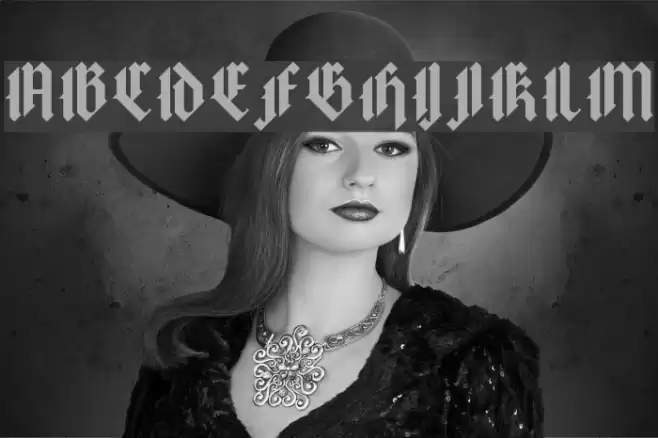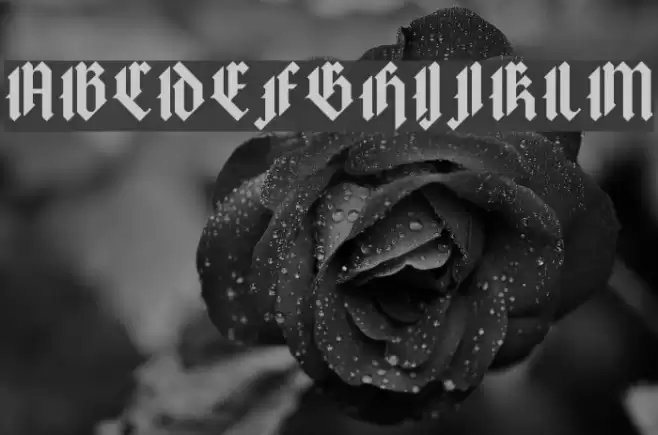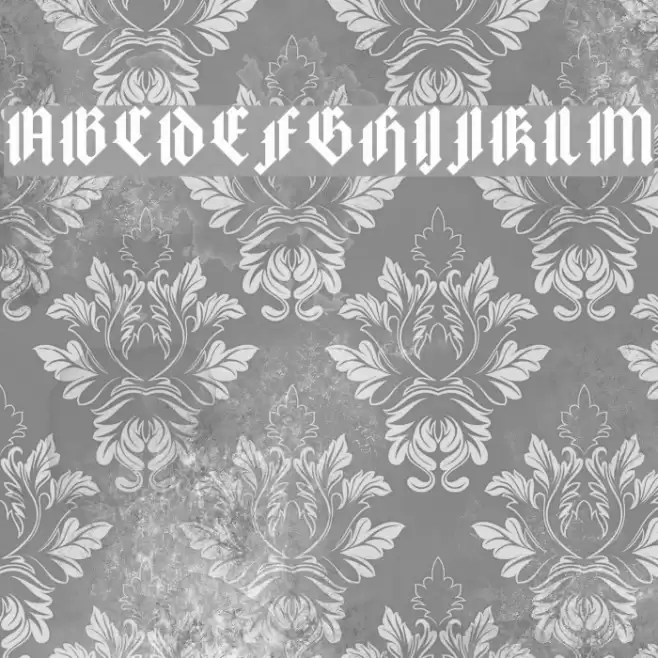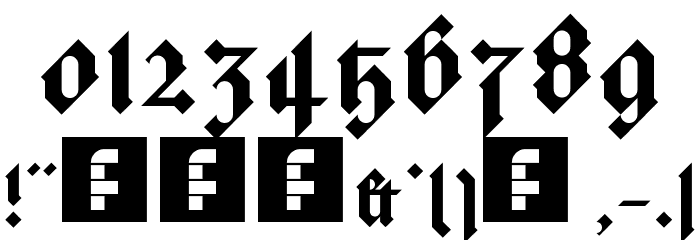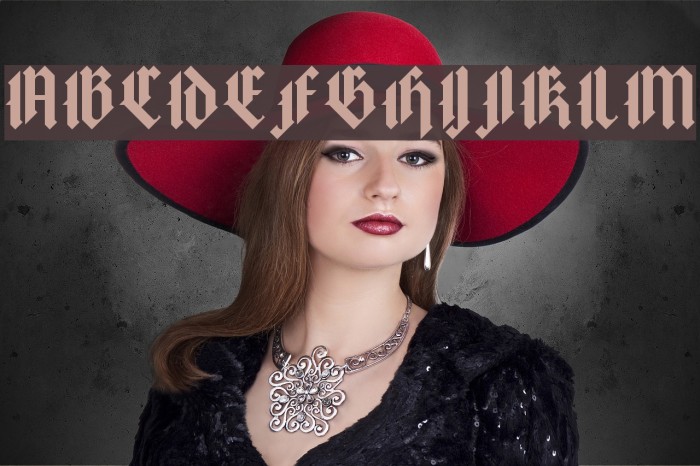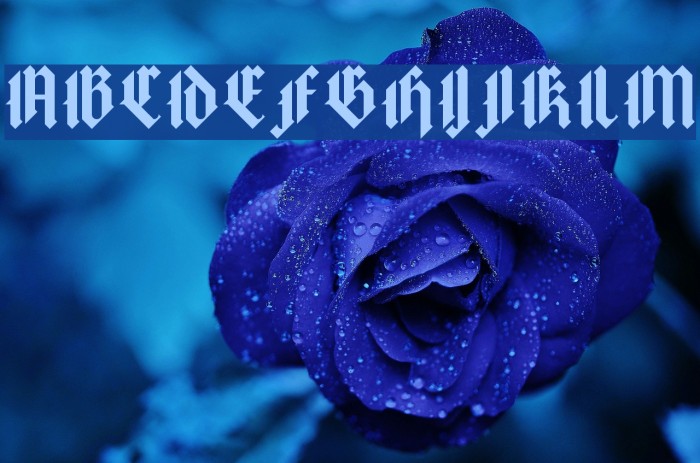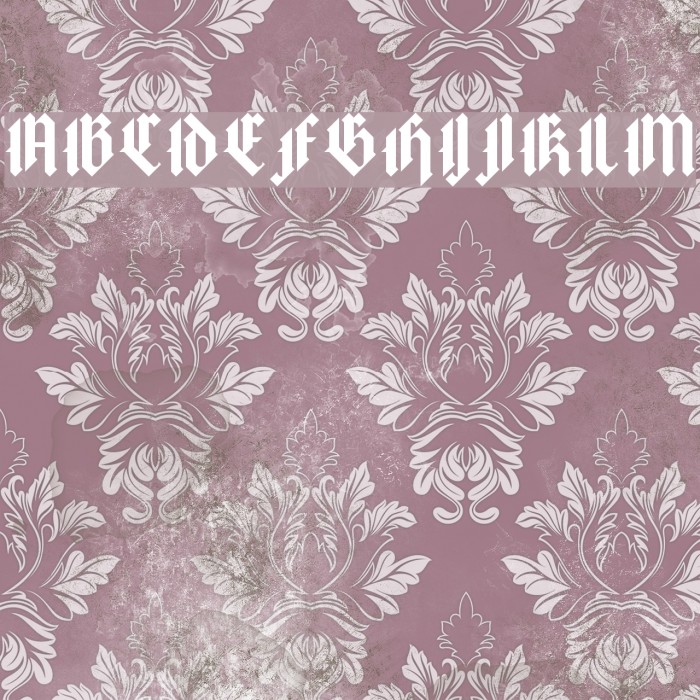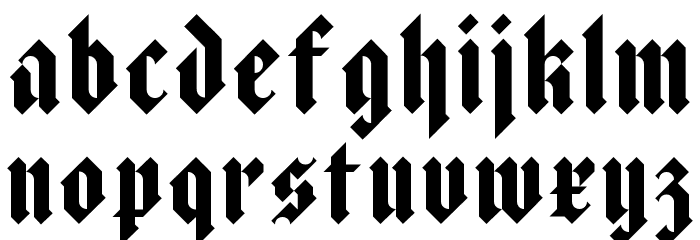
Texture Regular Font
Texture Regular Description
This font features a bold and striking blackletter style, reminiscent of traditional Gothic script. The characters are sharply angular with dramatic strokes and pointed serifs, creating a sense of historical elegance and authority. The uppercase letters are particularly ornate, with intricate details that enhance their visual impact. The lowercase letters maintain a consistent style, offering a cohesive look across the typeface. Numbers and special characters are designed to match the overall aesthetic, ensuring uniformity in any text composition.
A bold, Gothic blackletter font with sharp, angular strokes from Uncategorized fonts.
- Proposed Projects: Ideal for projects requiring a historical or medieval theme, such as book covers, posters, or branding for vintage products.
- Overall Style: Vintage
- Use Case: Headlines, Logos, Decorative text